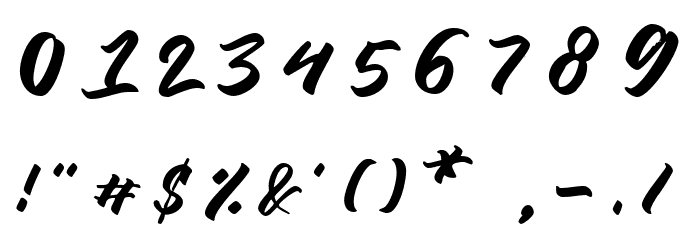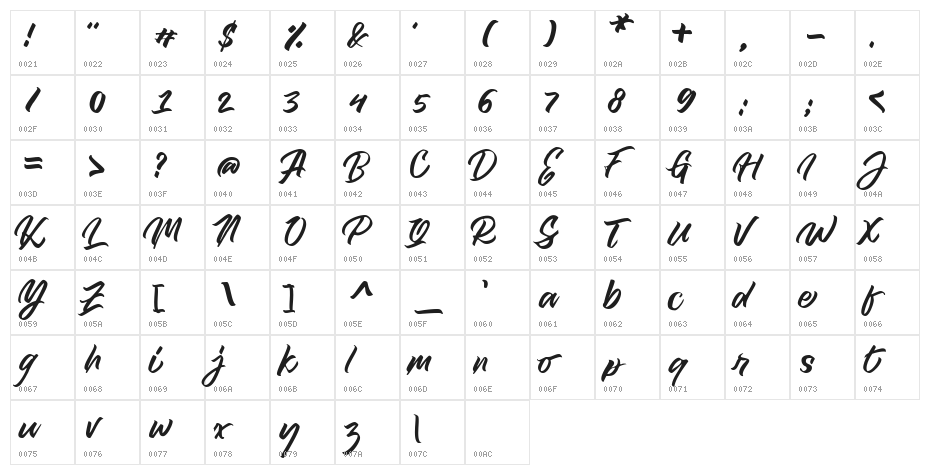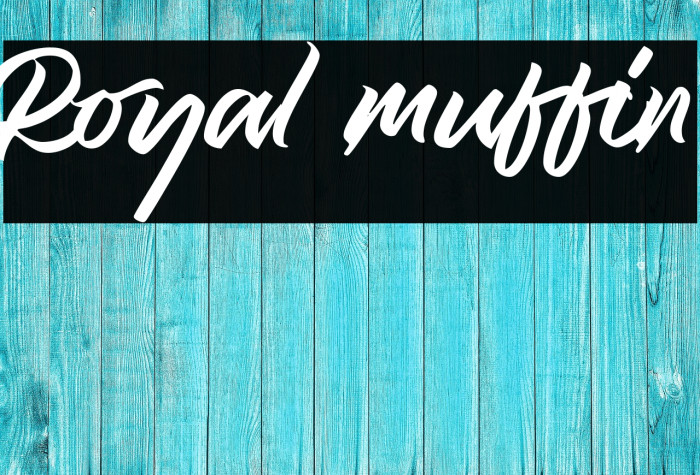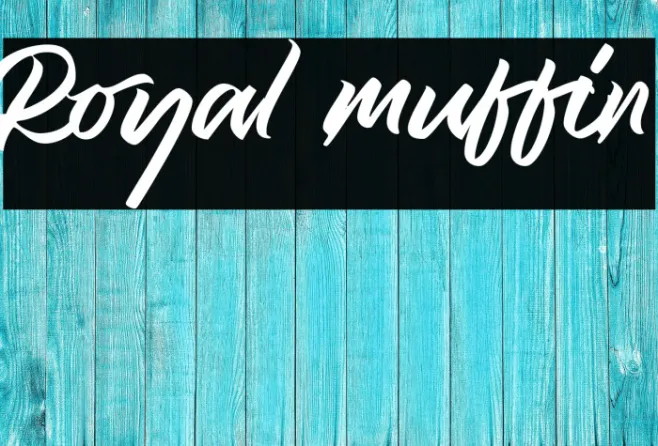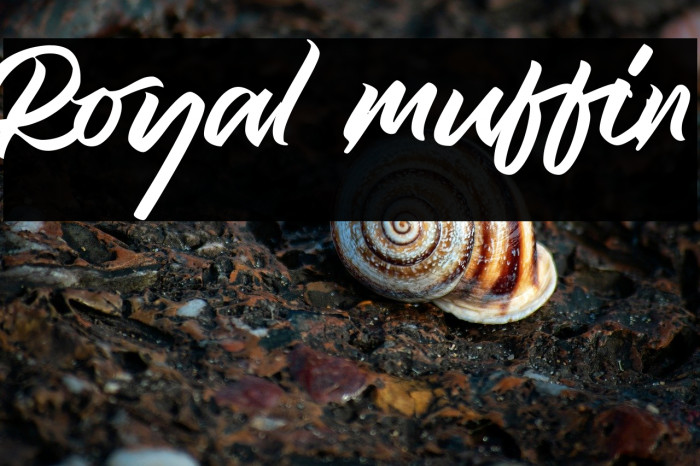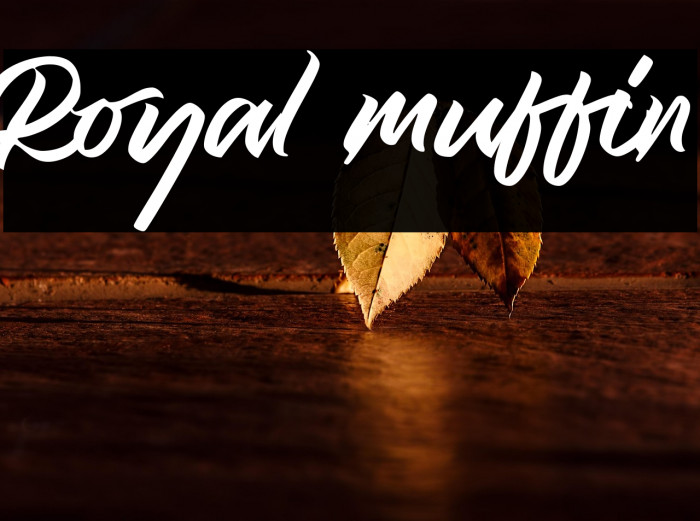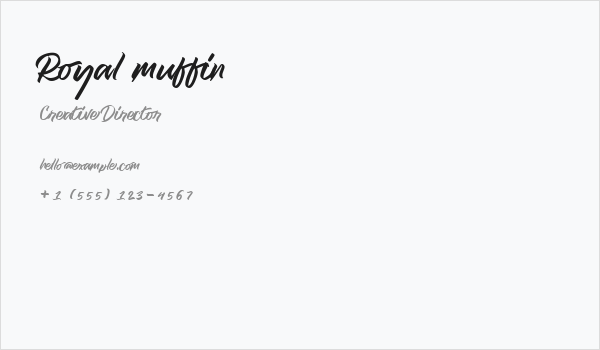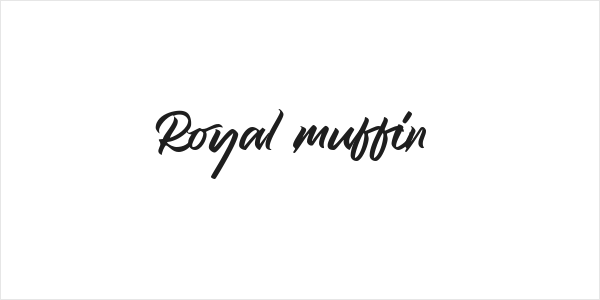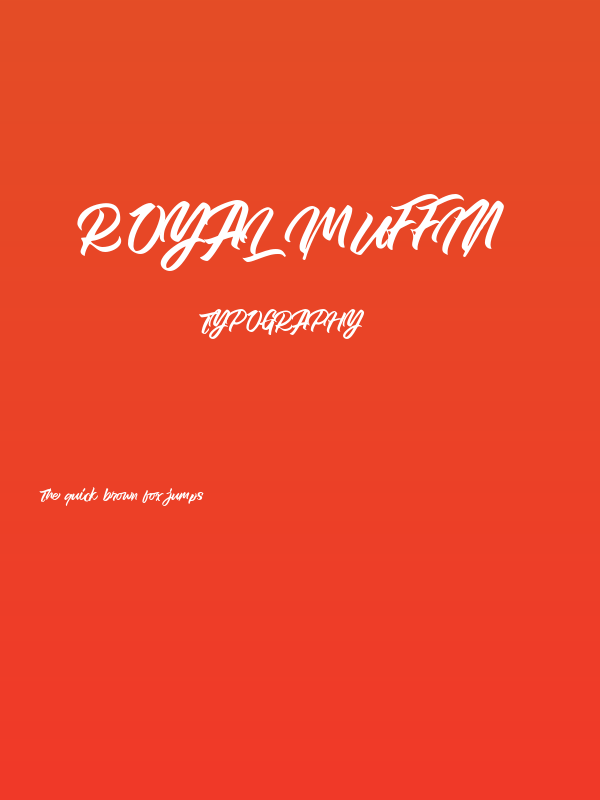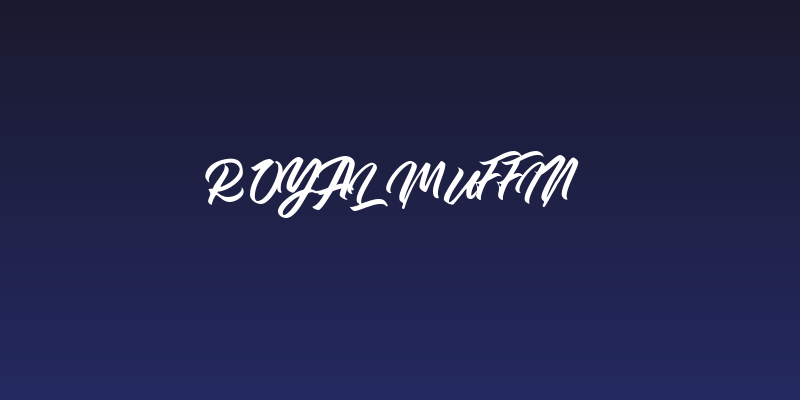
Royal muffin Font
Royal muffin Description
This font exhibits a bold and expressive handwritten style, characterized by its fluid and dynamic strokes. The letters are connected in a cursive manner, giving it an elegant and personal touch. The uppercase letters are slightly larger and more pronounced, while the lowercase letters maintain a consistent flow. The numbers and special characters follow the same stylistic approach, ensuring uniformity across all elements. The overall appearance is artistic and lively, making it suitable for projects that require a personal or creative flair.